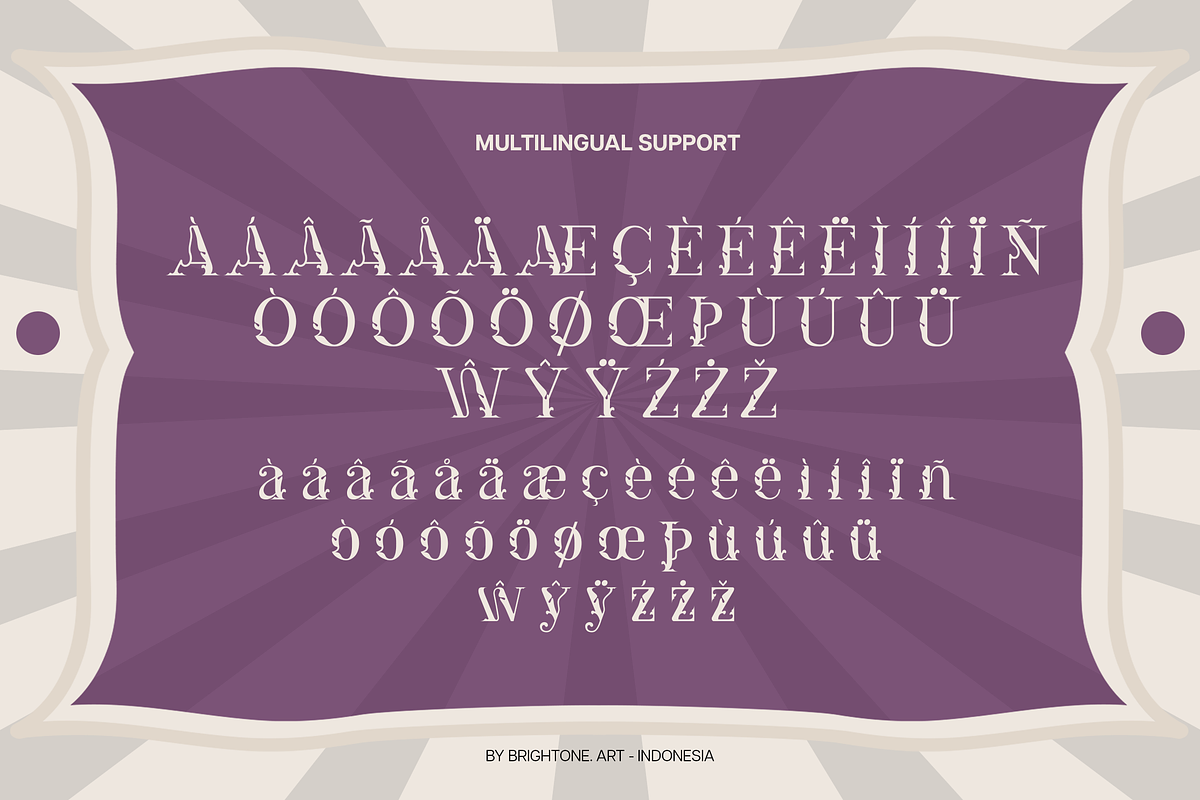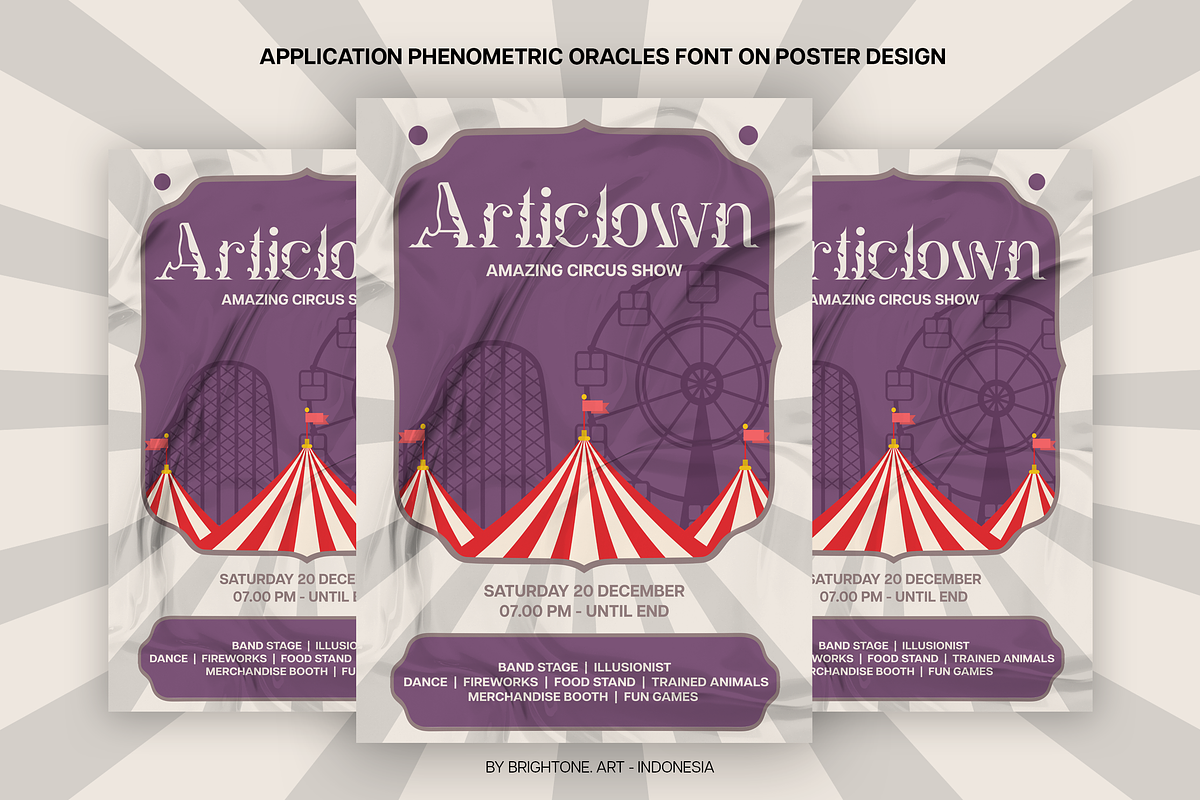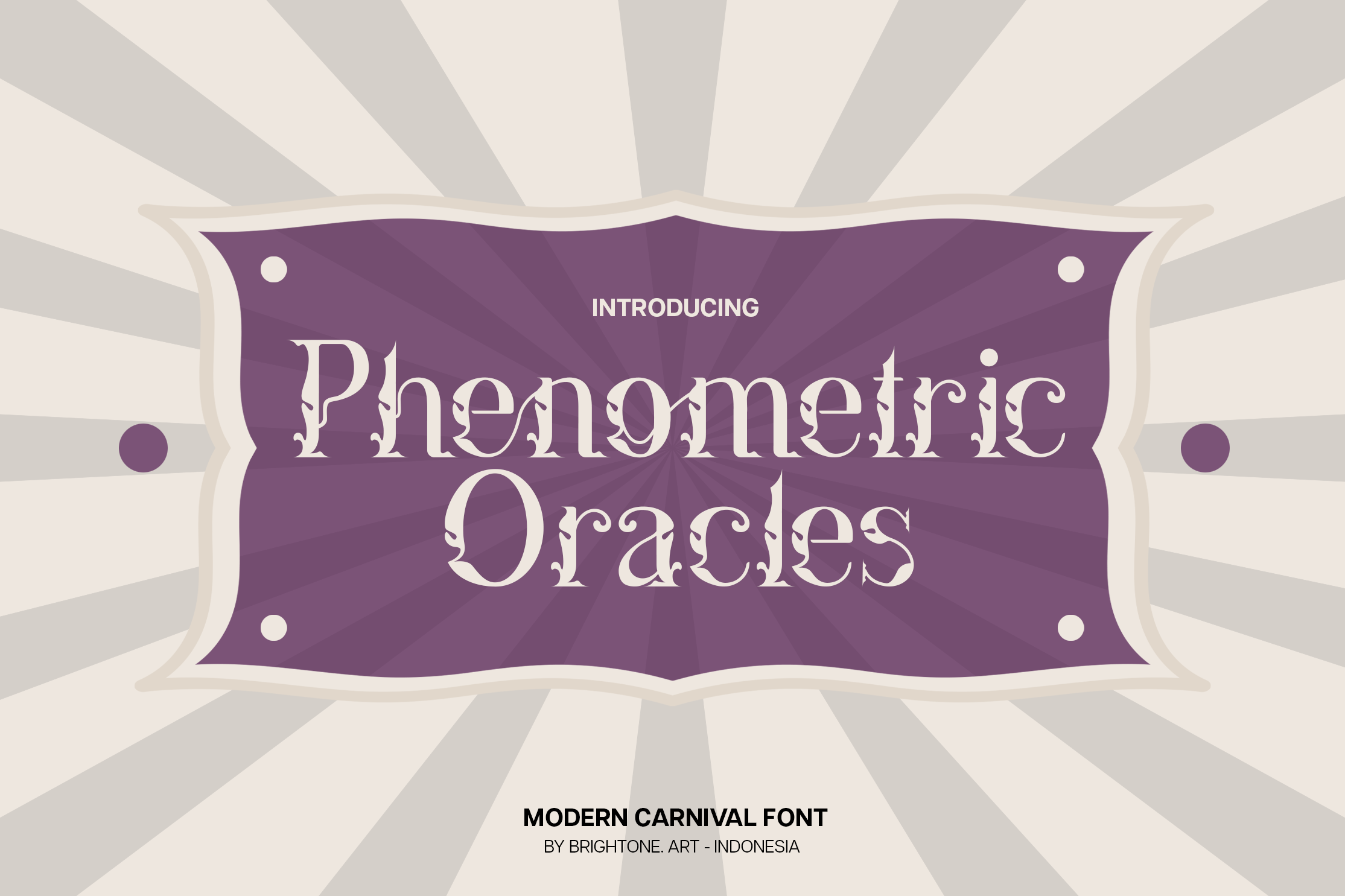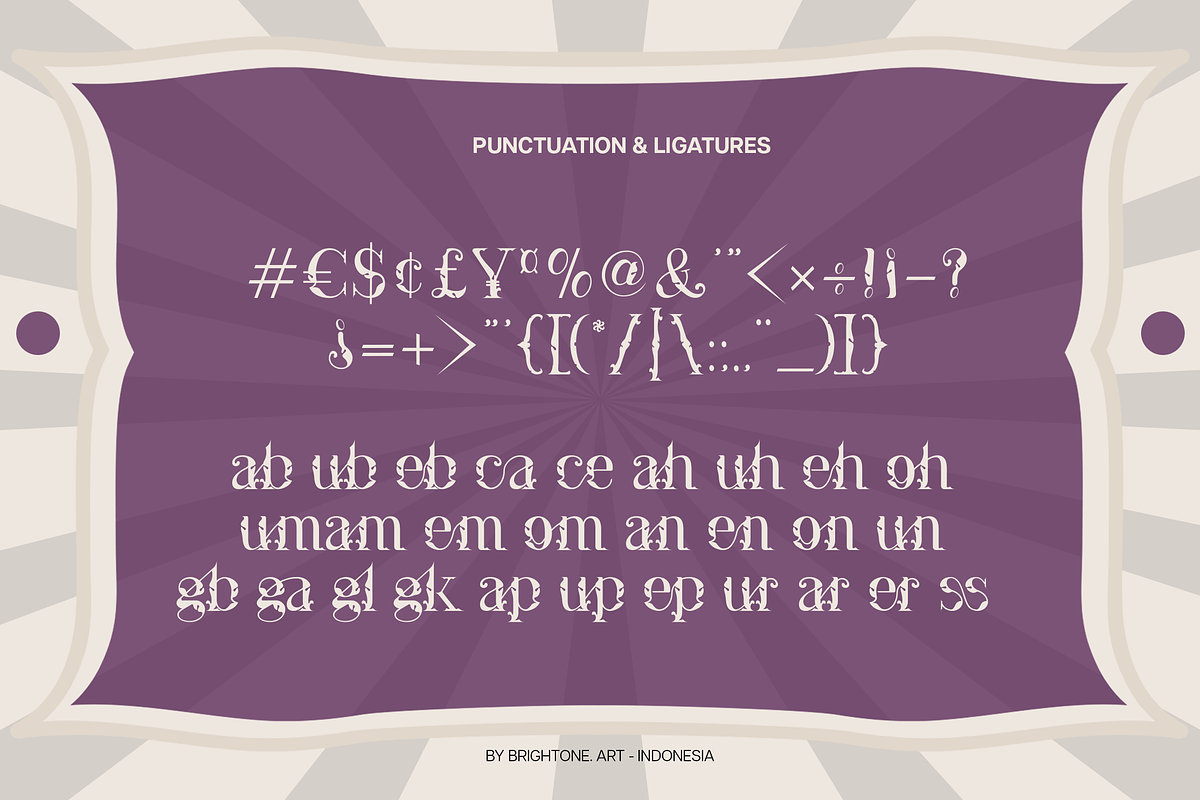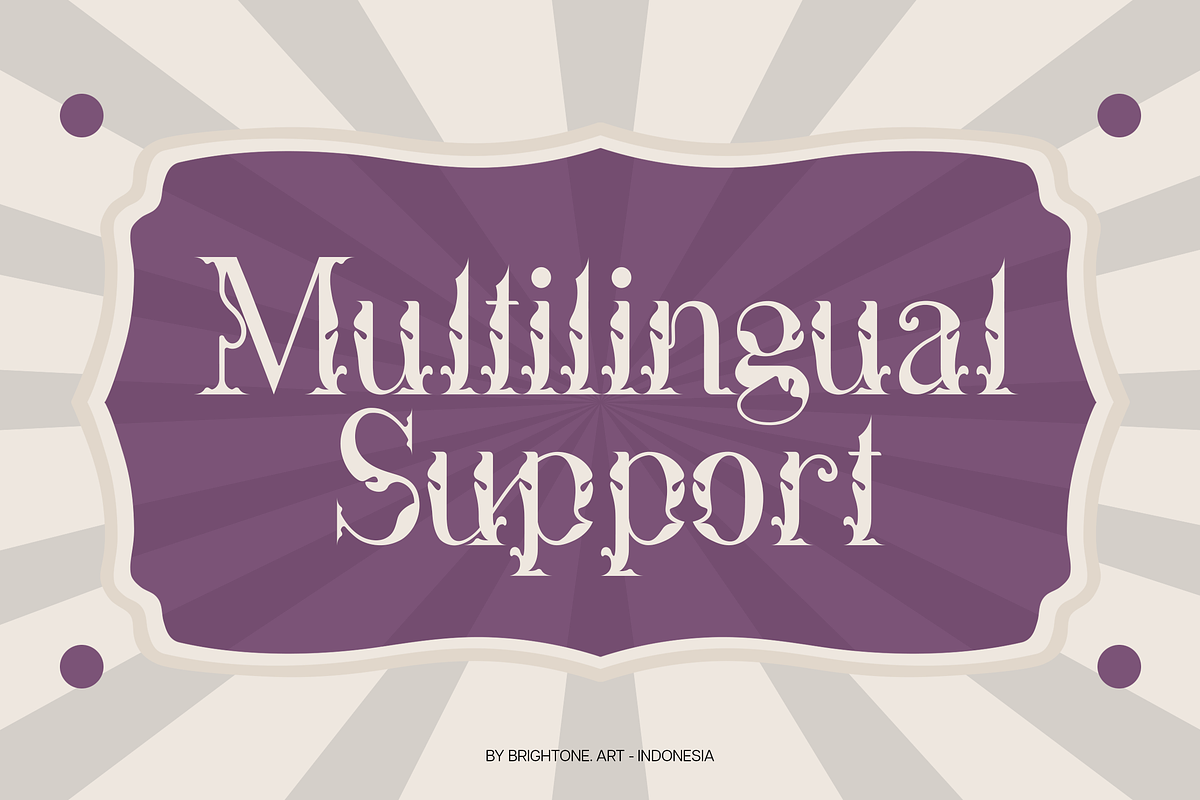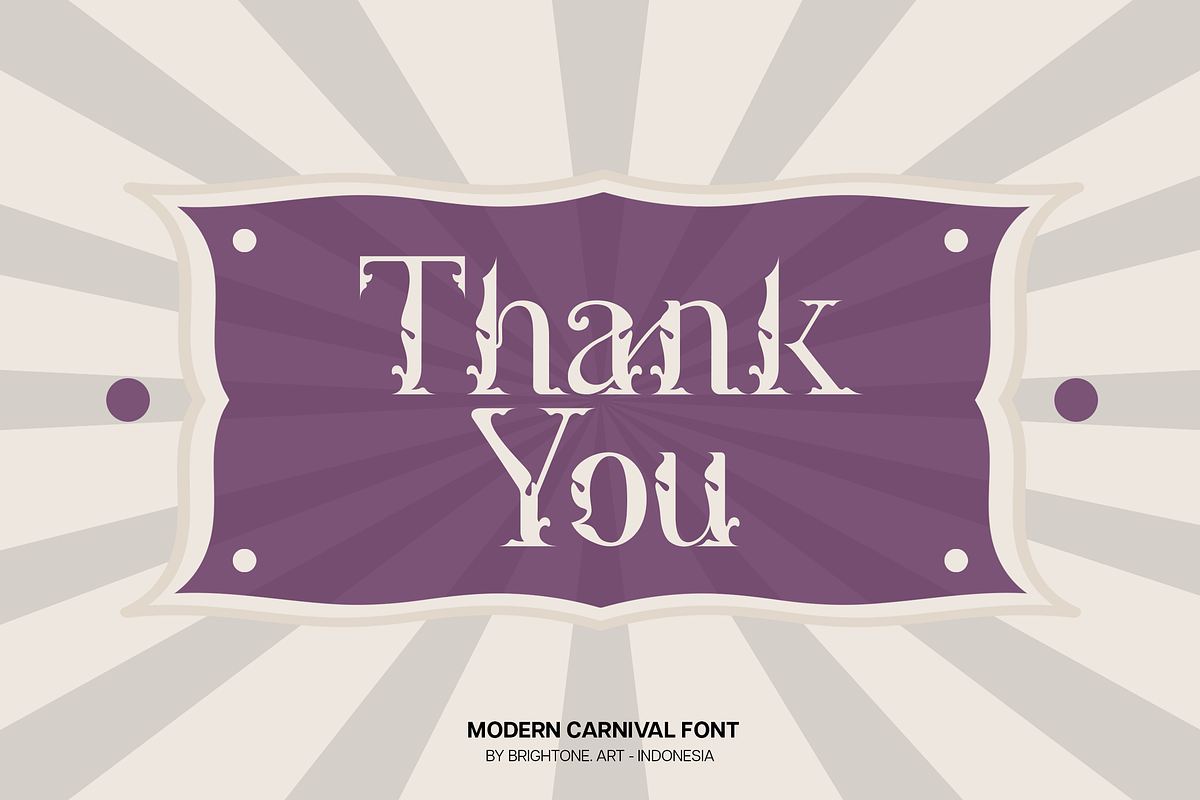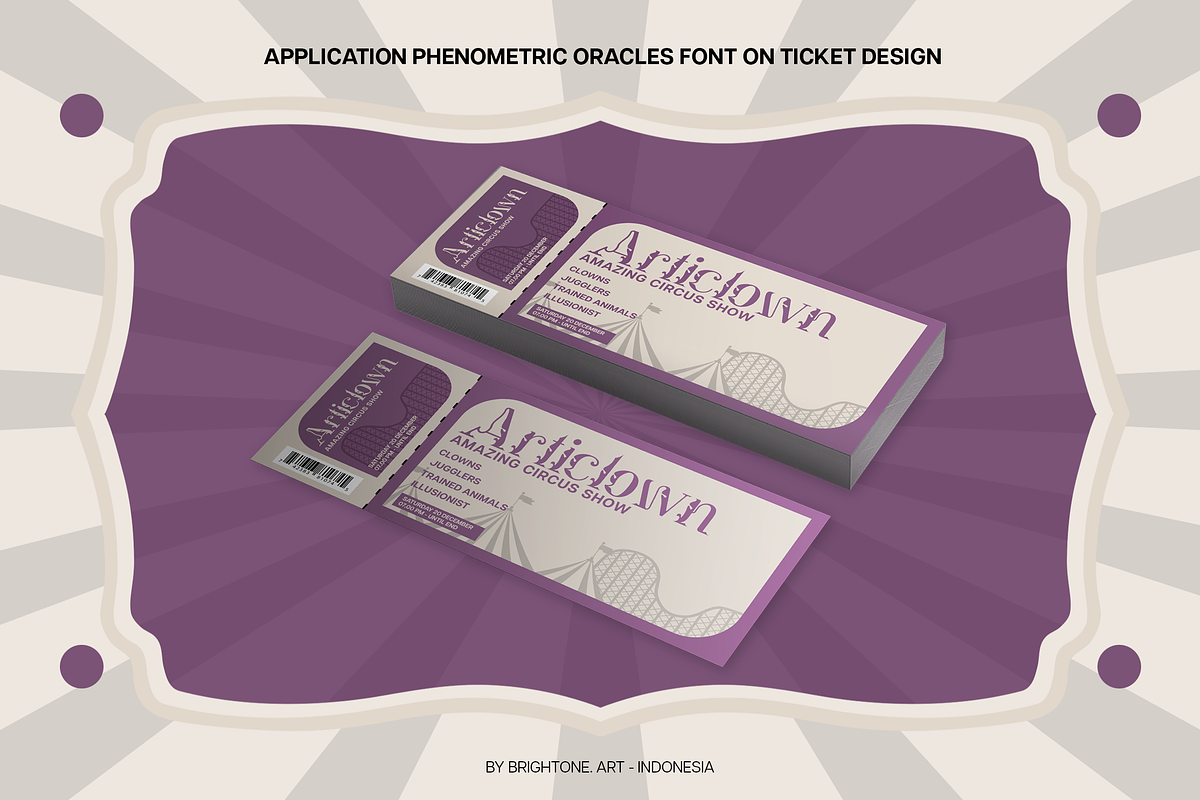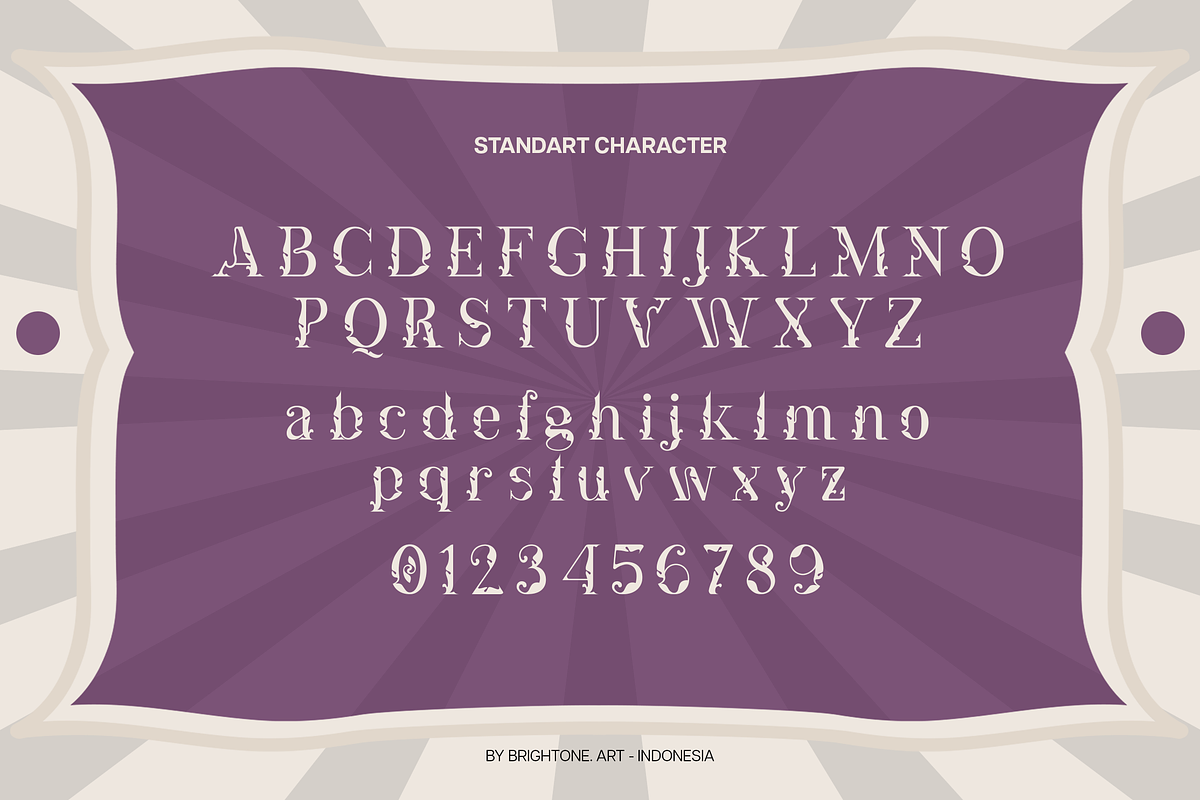
Phenometric Oracle - Carnival Font
PHENOMETRIC ORACLES is serif font with carnival decorative style and classy touch, these font includes:
- Uppercase and Lowercase Characters, Numbers and Punctuation.
- Ligatures.
- Multilingual Support (Eastern, Central and Western European countries).